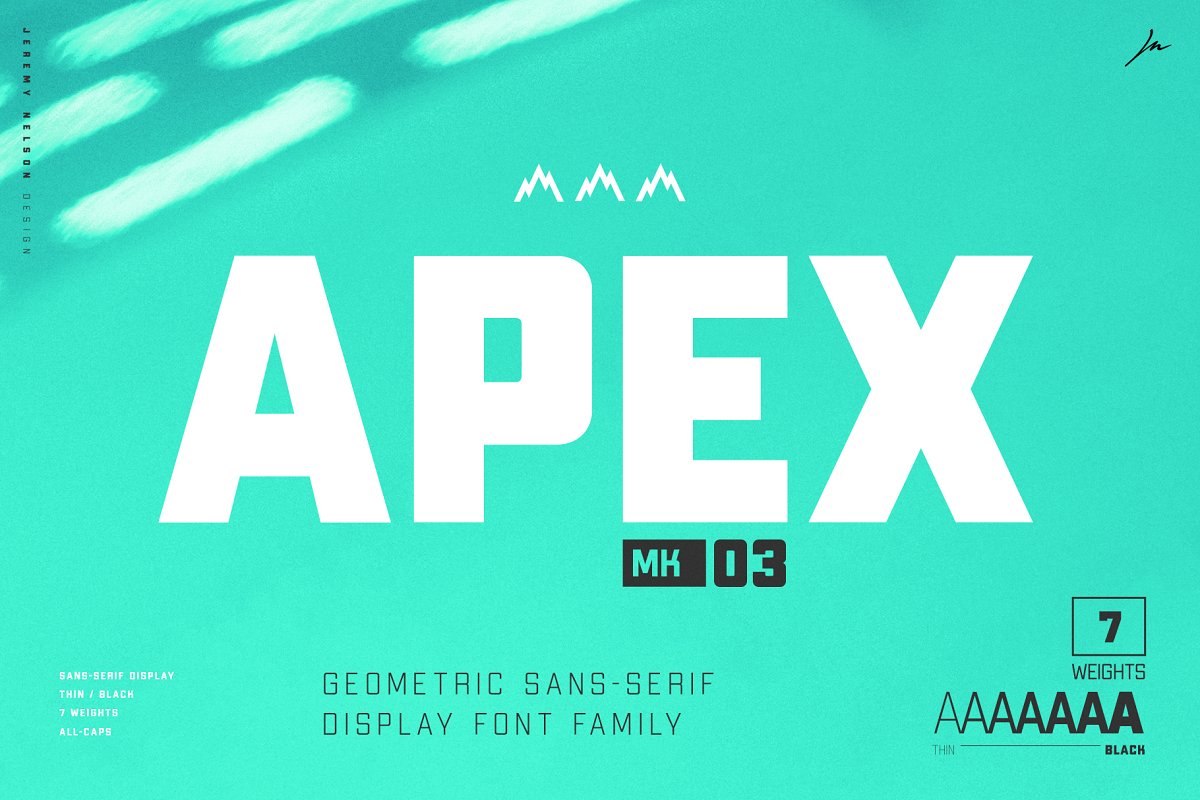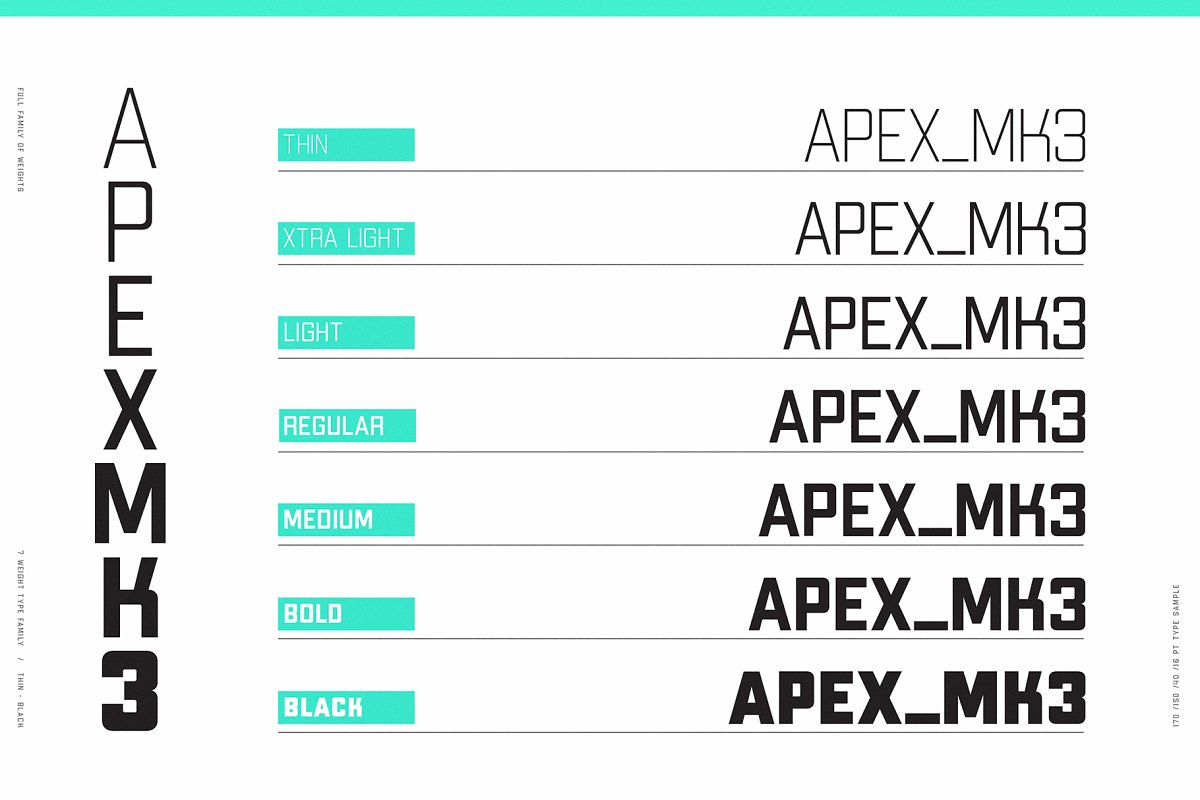
About the Apex Mk Font
A robust display typeface, Apex Mark 3 takes inspiration from classic geometric forms, sans serifs, and workhorse athletic block type, Simplicity of form gives it flexibility for a broad range of uses, while its geometric frame provides the foundation for its decisive tone, Including seven weights, the family ranges from Thin (100) to Black (900),